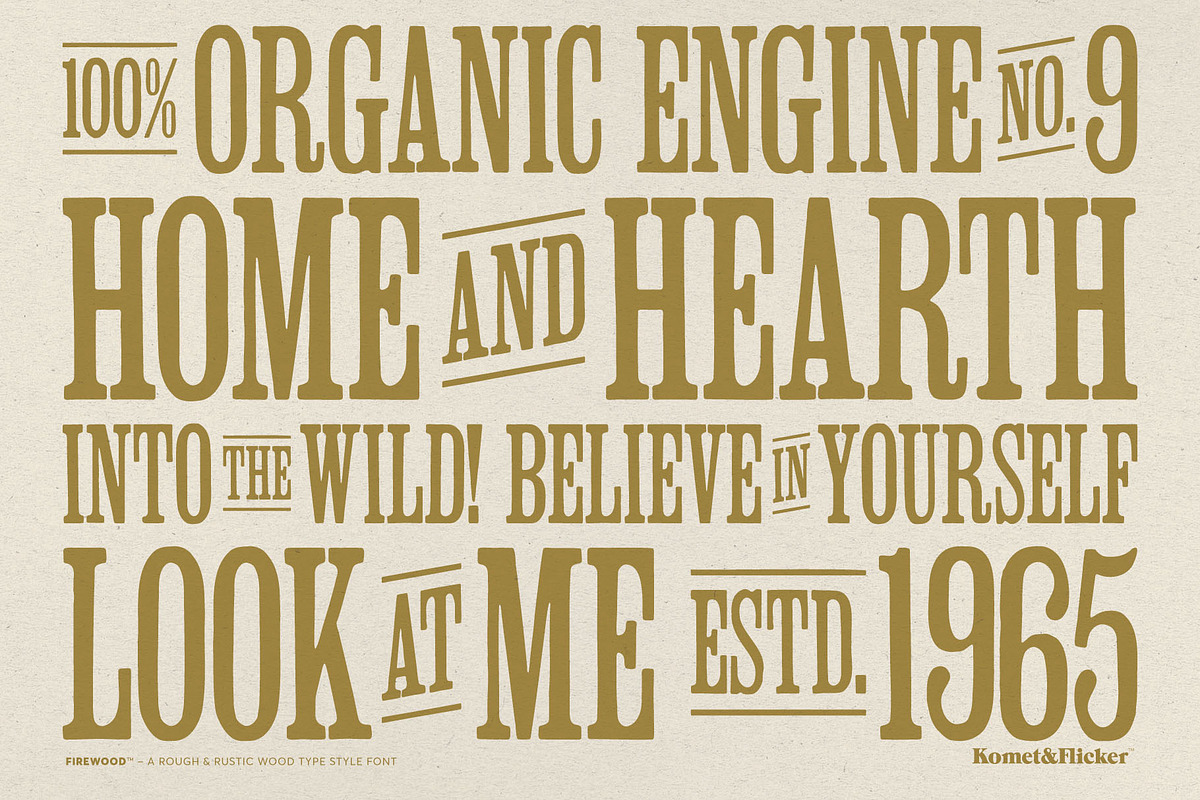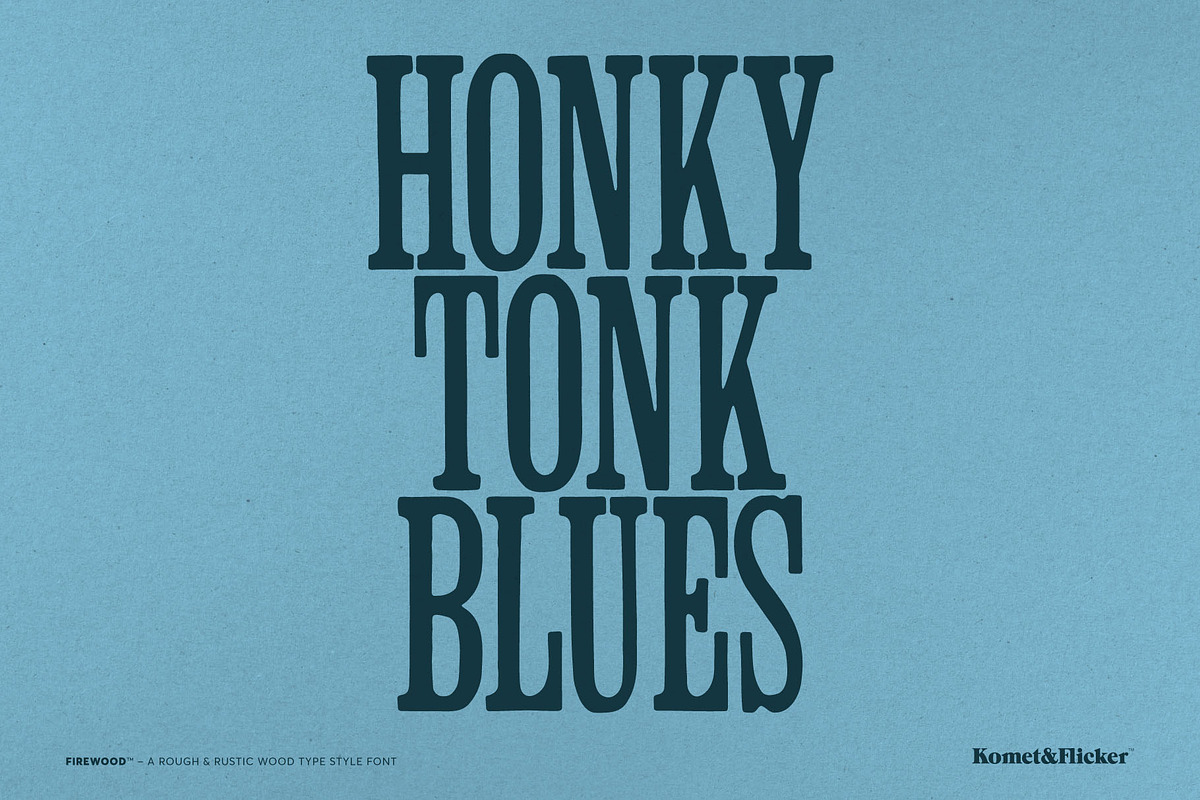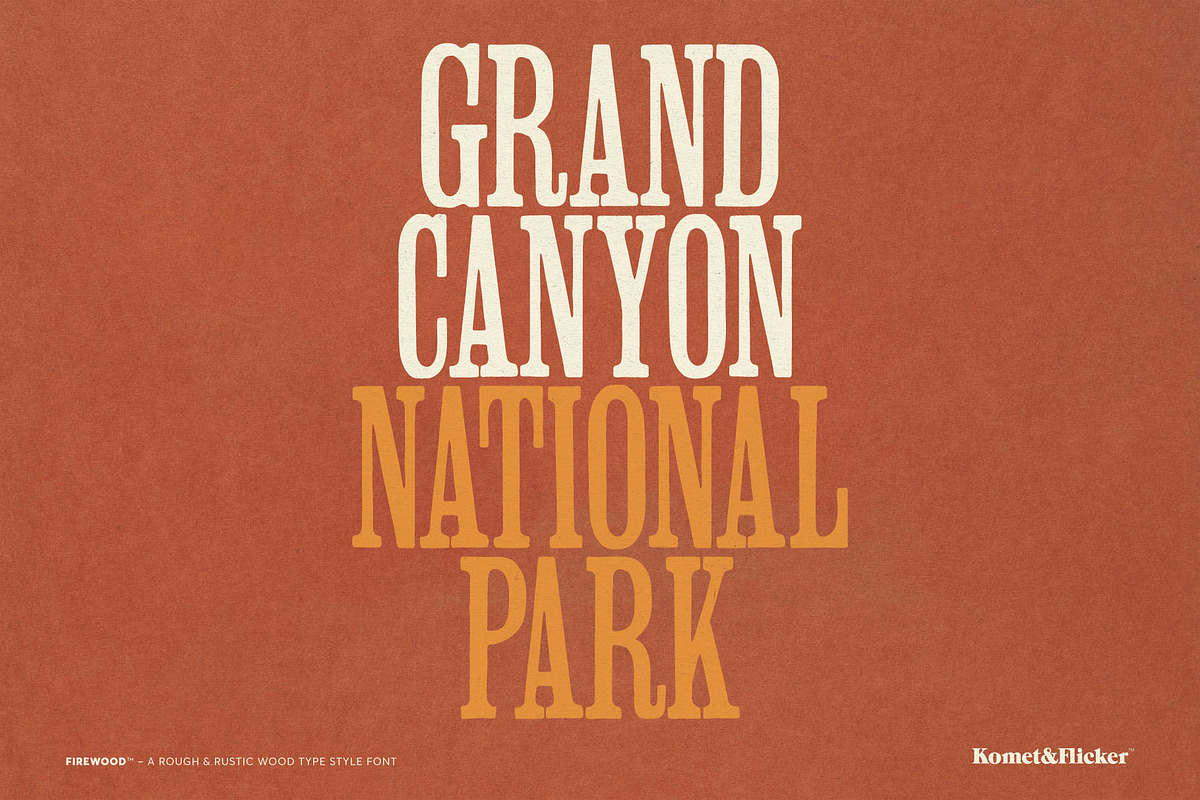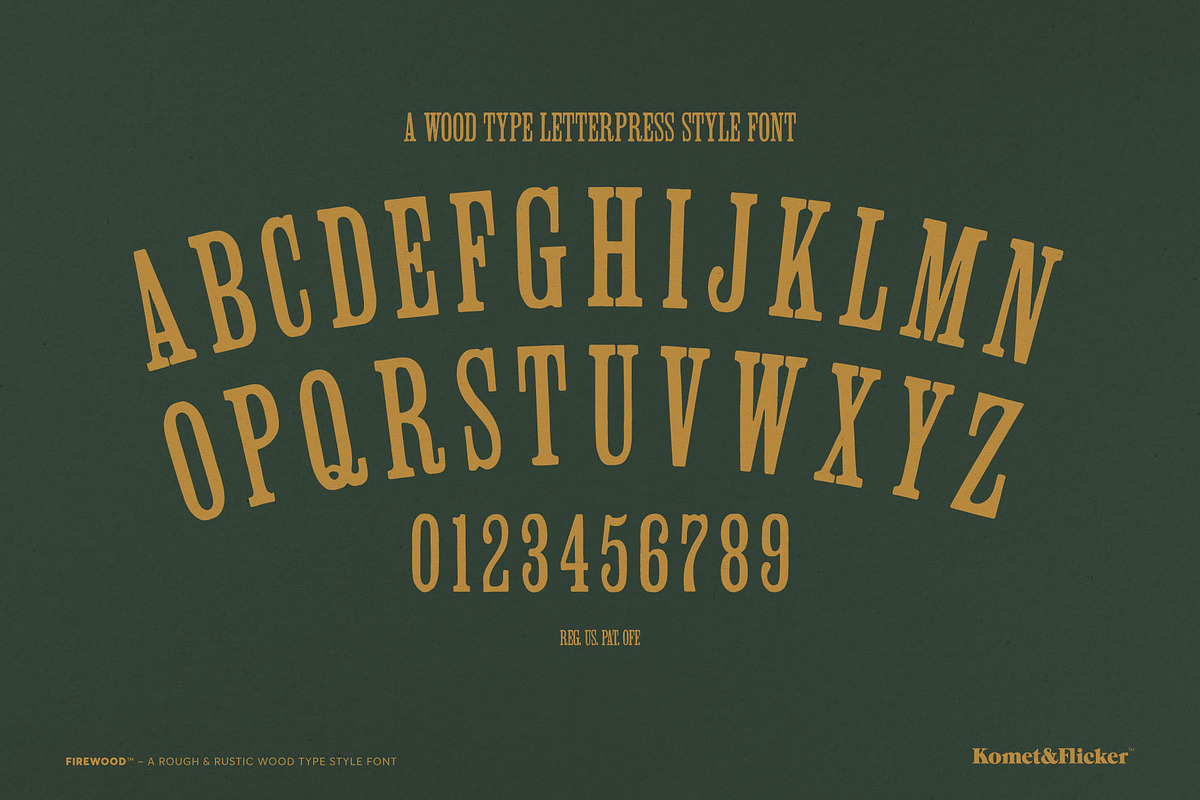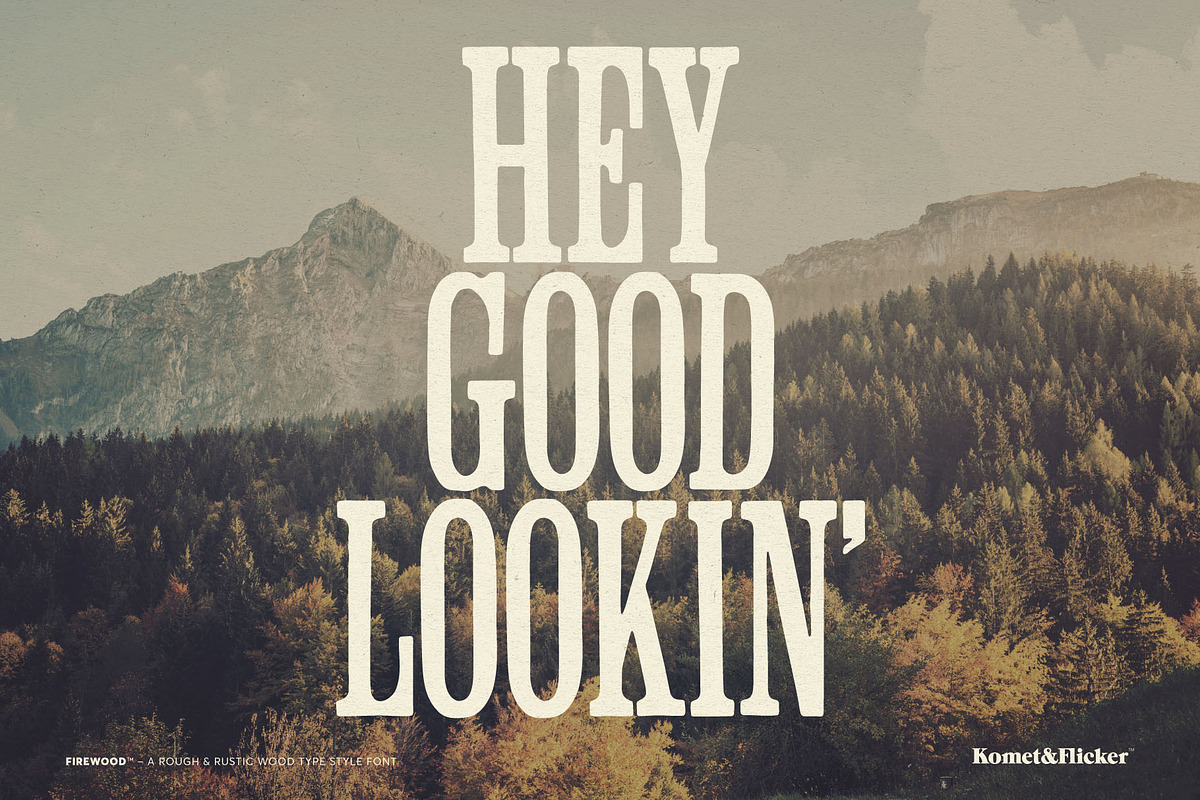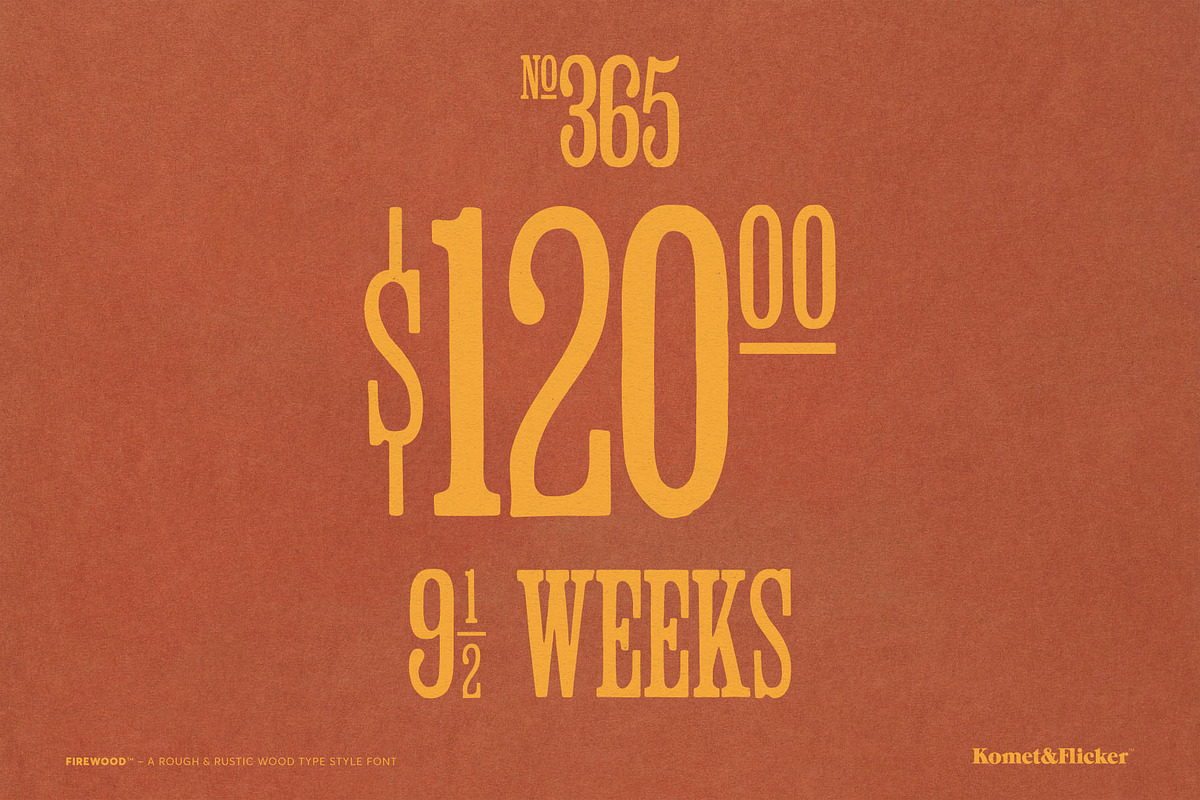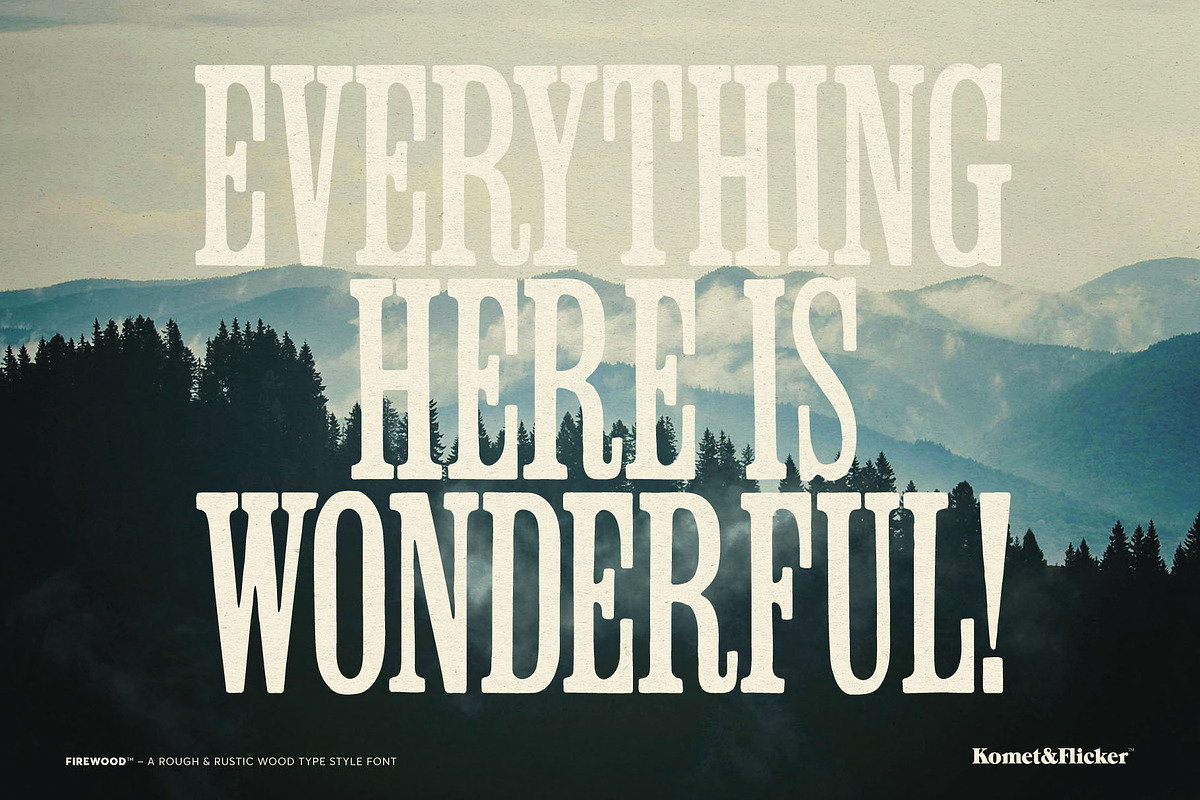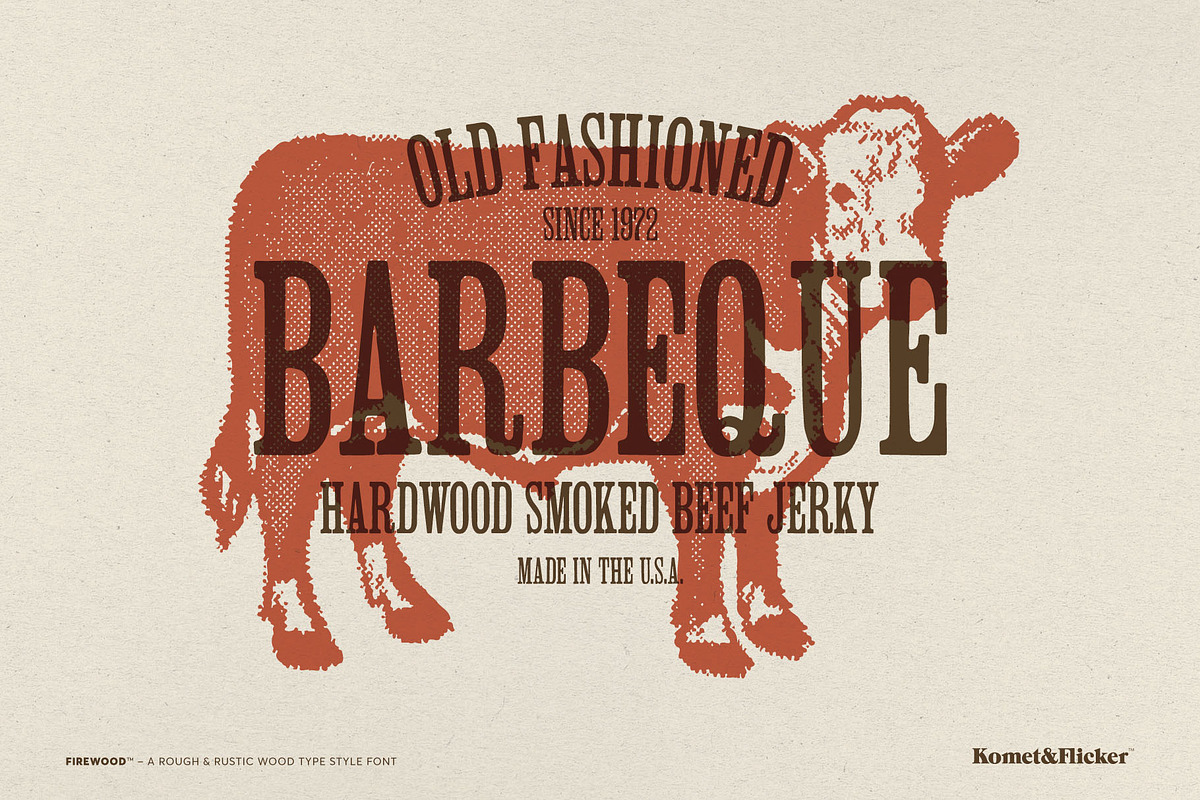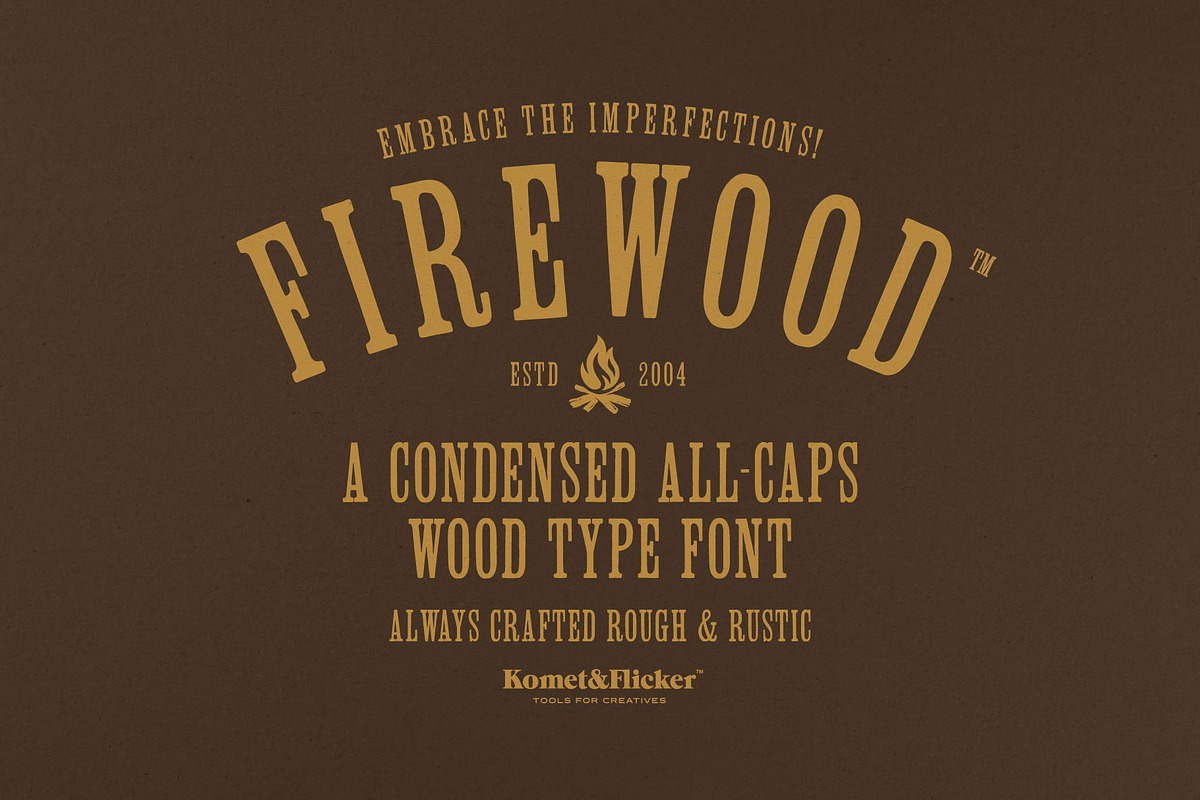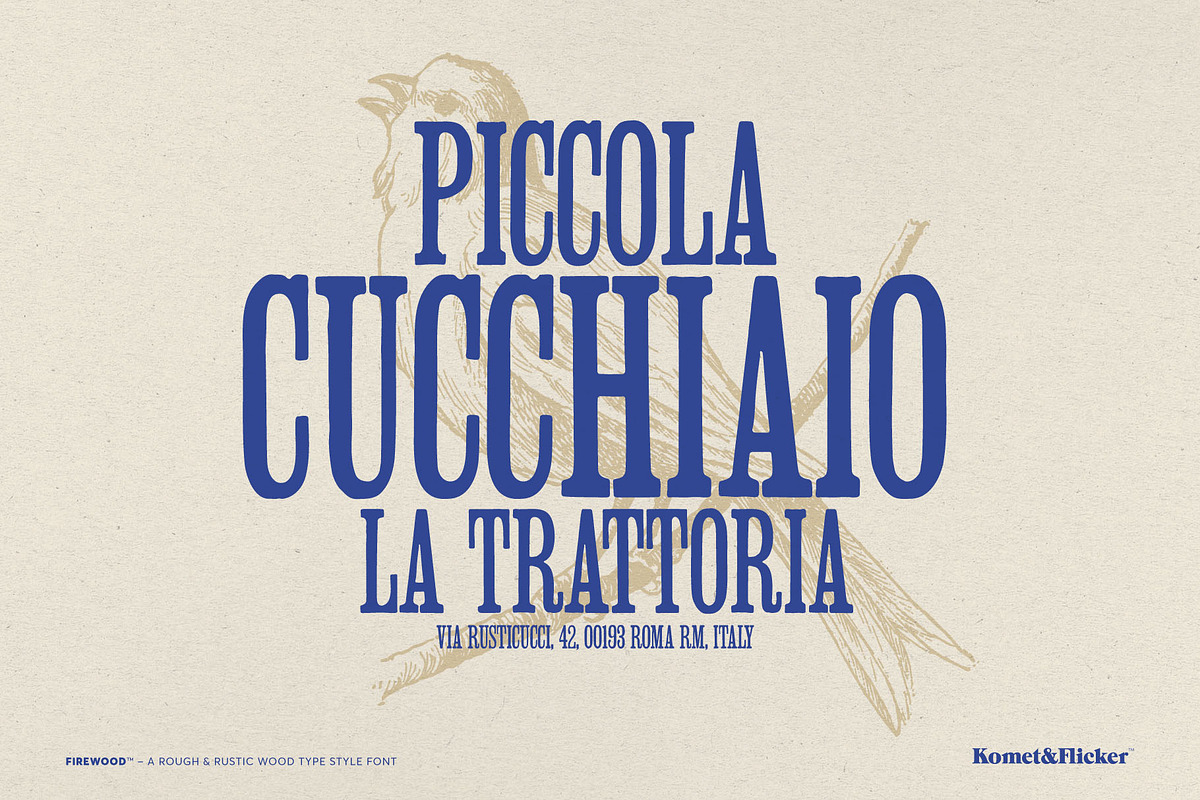
FIREWOOD - A Wood Type Style Font
Bring bold character and timeless charm to your design projects with FIREWOOD, a condensed vintage-inspired serif font crafted with the spirit of classic wood type letterpress printing. Perfect for everything from posters and logos to packaging and signage, FIREWOOD captures the tactile beauty of hand-set type with a modern twist.
And to make your layouts even more dynamic, FIREWOOD includes 20 custom connecting words in two styles (like "and", "of", "the", etc.), designed to flow seamlessly between your main text for an authentic, handcrafted look.
Whether you're going for cozy nostalgia or bold retro energy, FIREWOOD has you covered.
THIS FONT INCLUDES
- Full A-Z uppercase basic latin characters
- Select European characters
- Numbers, punctuation, and select symbols
- Set of 20 custom connecting word glyphs in two styles